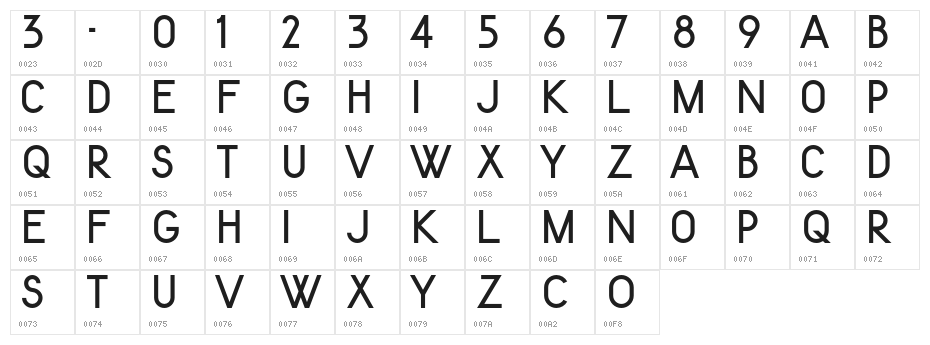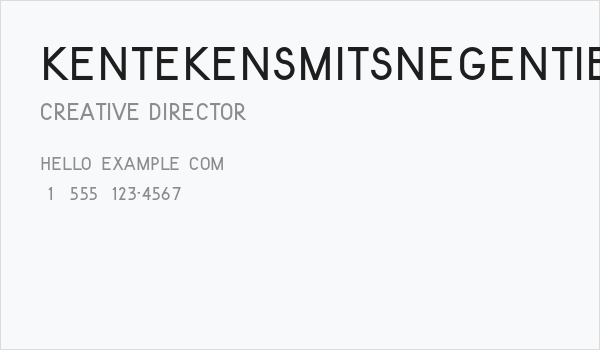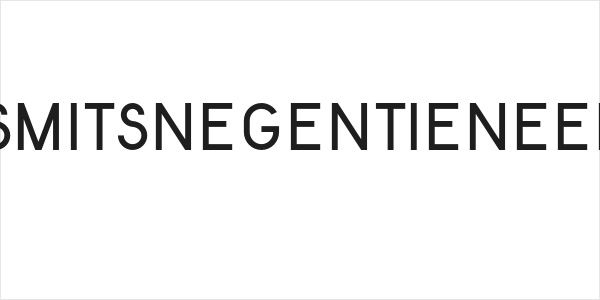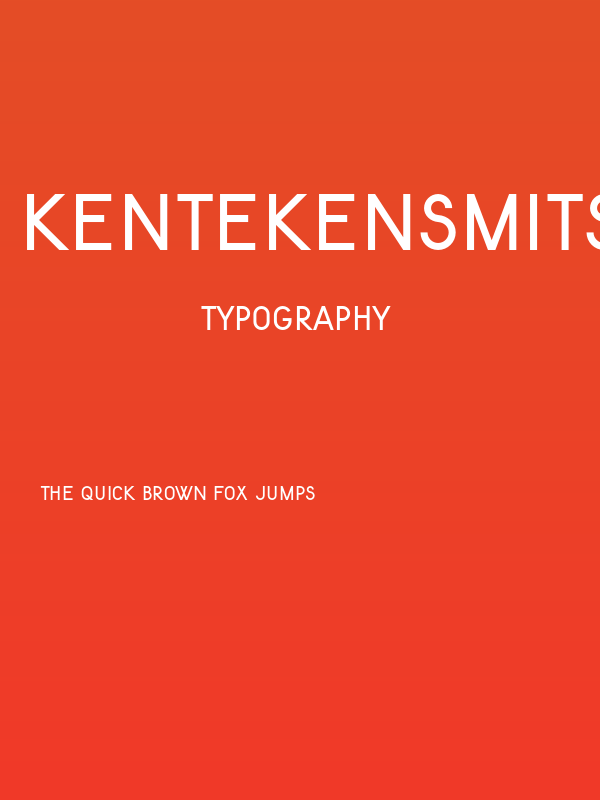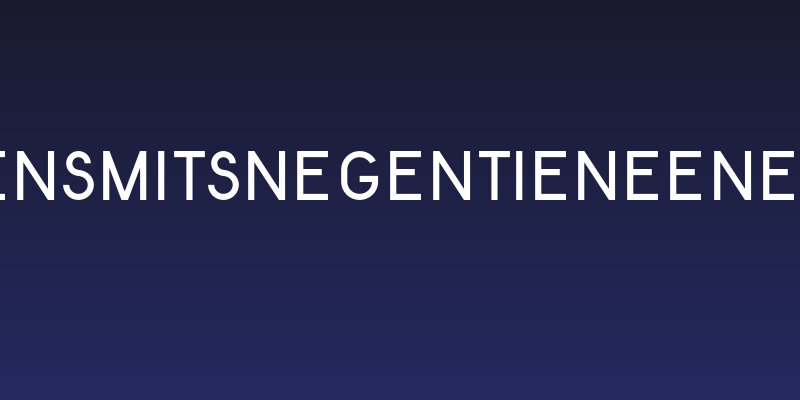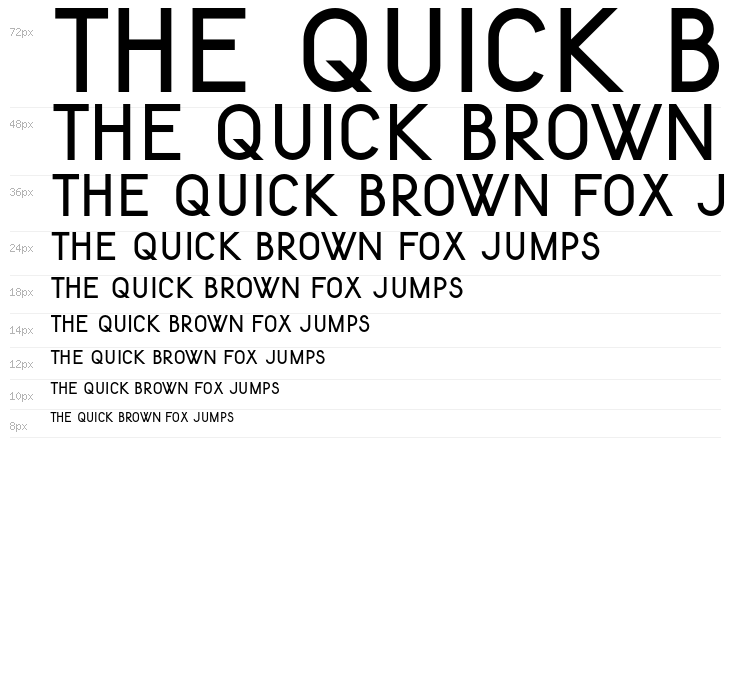
KentekenSmitsNegentienEenenvijftig Font
KentekenSmitsNegentienEenenvijftig Description
This font features a clean and modern sans-serif design with uniform stroke widths, giving it a sleek and contemporary appearance. The characters are well-proportioned with a geometric influence, evident in the circular shapes of the 'O' and '0', and the straight lines of the 'L' and 'T'. The uppercase and lowercase letters maintain a consistent style, ensuring readability and versatility. The numerals are distinct and clear, making them suitable for various applications. The overall design is minimalistic, with no additional flourishes or embellishments, emphasizing clarity and functionality.
| Proposed Projects | Ideal for branding, signage, digital interfaces, and editorial design where clarity and modernity are key. |